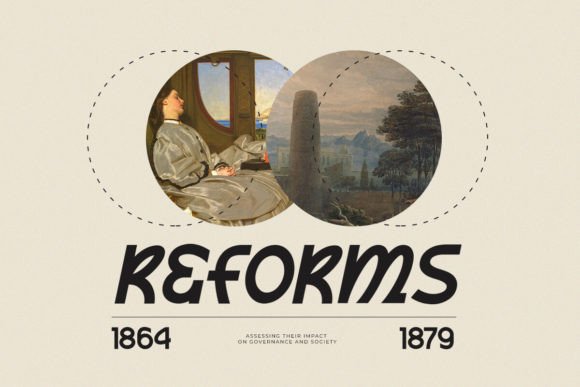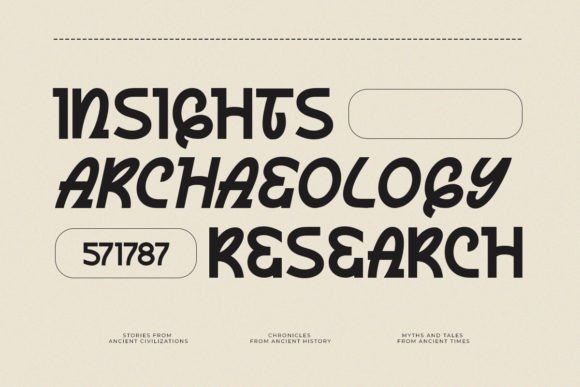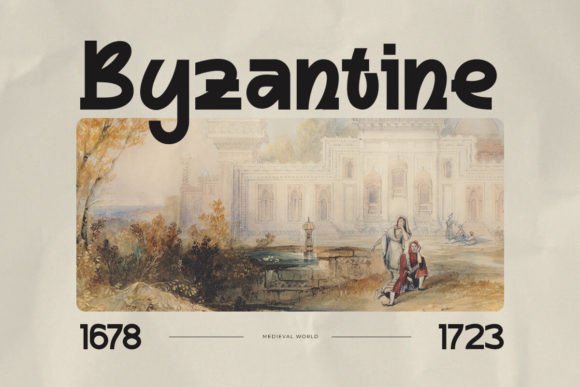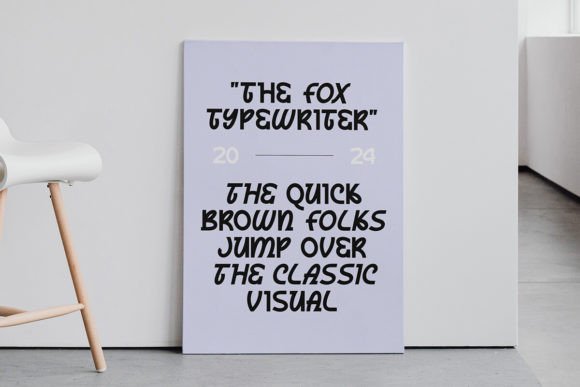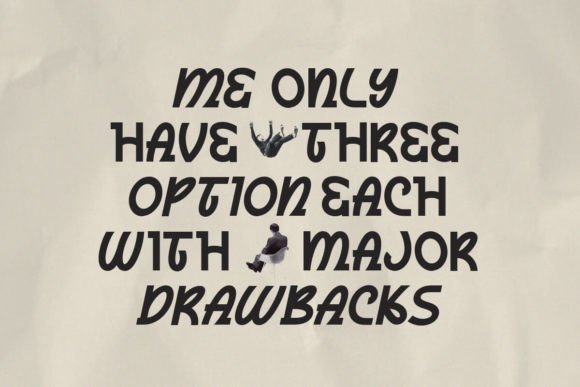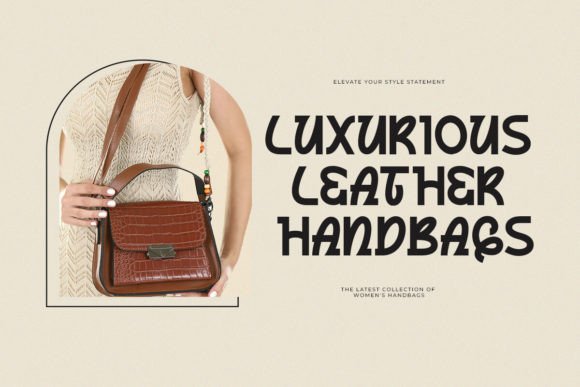
Doremia Font: Elevate Your Designs with a Bold and Experimental Style
In the world of typography, fonts play a crucial role in conveying the tone and personality of a brand or design. For designers and crafters looking to make a statement, Doremia Font is an excellent choice. This modern display font boasts an experimental style that exudes confidence and creativity. With its bold, fun appearance and touch of cursive elements, Doremia Font is perfect for projects that require a distinctive and strong gesture.
What Makes Doremia Font Stand Out?
Doremia Font is not your average font. Its unique blend of bold and cursive elements sets it apart from other fonts in the market. The font’s experimental style gives it a fresh and modern look that’s sure to grab attention. Whether you’re designing a logo, headline, book cover, or magazine, Doremia Font is guaranteed to make your project stand out.
Perfect for Beauty and Creative Projects
Doremia Font is particularly suited for projects related to beauty, fashion, and lifestyle. Its bold and fun appearance makes it an excellent choice for:
- Logos: Create a lasting impression with a custom logo that showcases your brand’s personality.
- Headlines: Grab attention with bold and eye-catching headlines that demand to be read.
- Book Covers: Add a touch of sophistication and elegance to your book cover designs.
- Magazines: Elevate your magazine designs with a font that’s both stylish and easy to read.
Key Features of Doremia Font
So, what makes Doremia Font so special? Here are some of its key features:
- Bold and Experimental Style: Doremia Font is not for the faint of heart. Its bold and experimental style makes it perfect for designers who want to push the boundaries of creativity.
- Fun and Cursive Elements: The font’s fun and cursive elements add a touch of playfulness and sophistication to any design.
- High-Quality Design: Doremia Font is designed with high-quality and precision, ensuring that it looks great in any size or format.
- Easy to Read: Despite its bold and experimental style, Doremia Font is surprisingly easy to read, making it perfect for body text and headlines.
How to Use Doremia Font in Your Designs
Using Doremia Font in your designs is easy. Here are some tips to get you started:
- Pair it with Other Fonts: Doremia Font pairs well with other fonts, especially those with a clean and minimalist style.
- Experiment with Colors: Doremia Font looks great in bold and bright colors, but it can also be used in more subtle and muted tones.
- Play with Size and Layout: Don’t be afraid to experiment with different sizes and layouts to create a unique and eye-catching design.
- Is Doremia Font suitable for body text? While Doremia Font can be used for body text, it’s primarily designed for display purposes, such as headlines and titles.